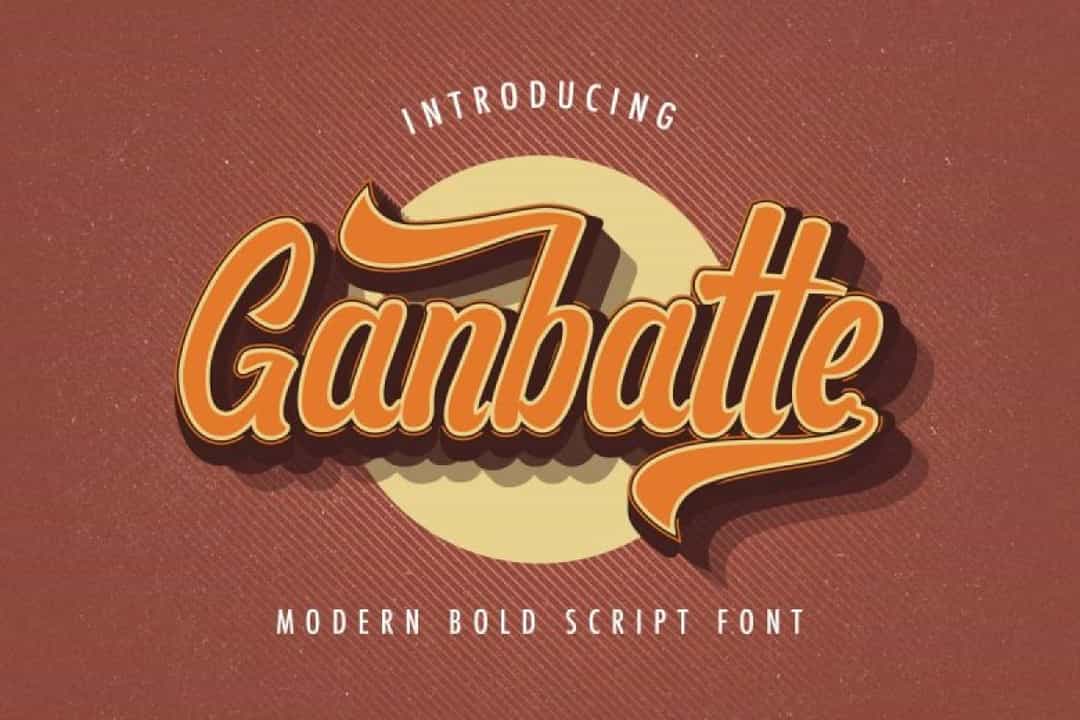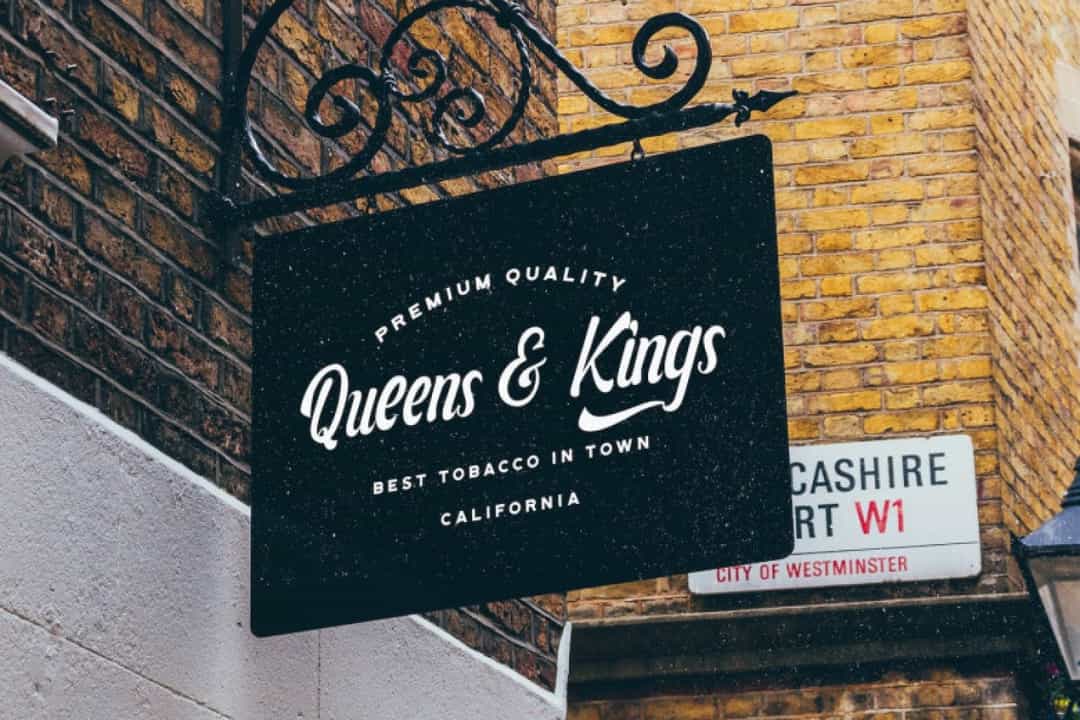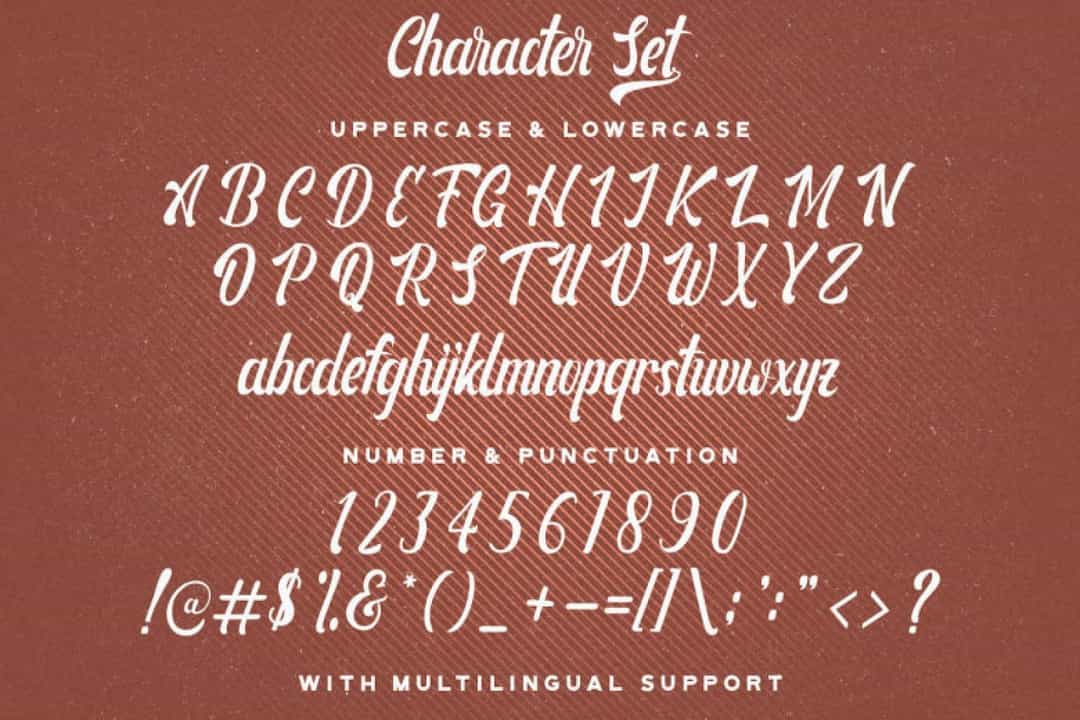
This font is quite an artistic and stylish one with smooth lines describing the letters, it is rather minimalistic and can be used for the modern urban projects. Ganbatte is suitable for quotes Vlogger previews logotype designs fashion web banners Musician music promotion restaurant or coffee shop promotions and so on.